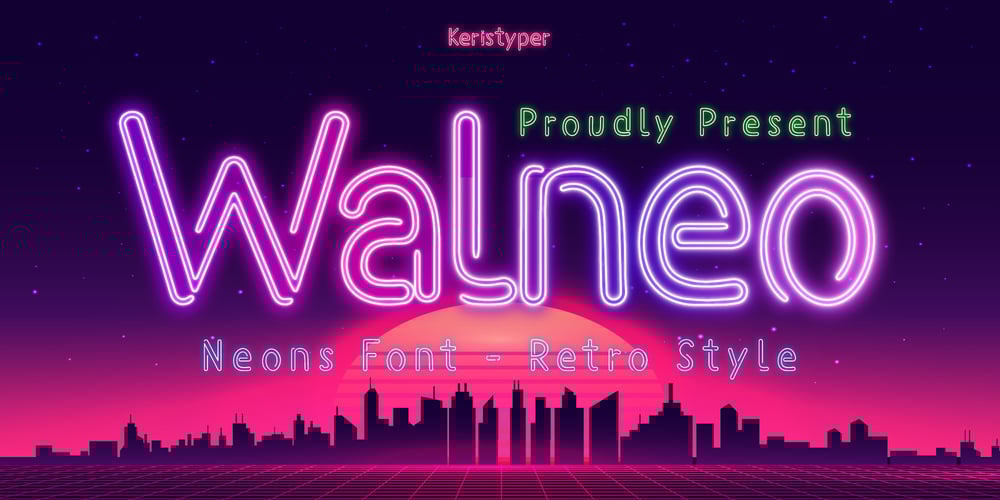
Walneo Font Family was designed by Tezar Tantular and published by Keristyper Studio. Walneo contains 1 styles and family package options. Walneo is a decorative neon font inspired by Retro night neon light signs. This font is good for logo design, Social media, Movie Titles, Books Titles, short text even long text letters, and good for your secondary text font with sans or serif.**Featured:*** Standard Uppercase & Lowercase* Numeral & Punctuation* Multilingual : ä ö ü Ä Ö Ü ß ¿ ¡* Alternate & Ligature* PUA encodedWe recommend programs that support the OpenType feature and the Glyphs panel such as Adobe applications or Corel Draw. so you can use all the variations of the glyphs.Hope you enjoy our fonts!